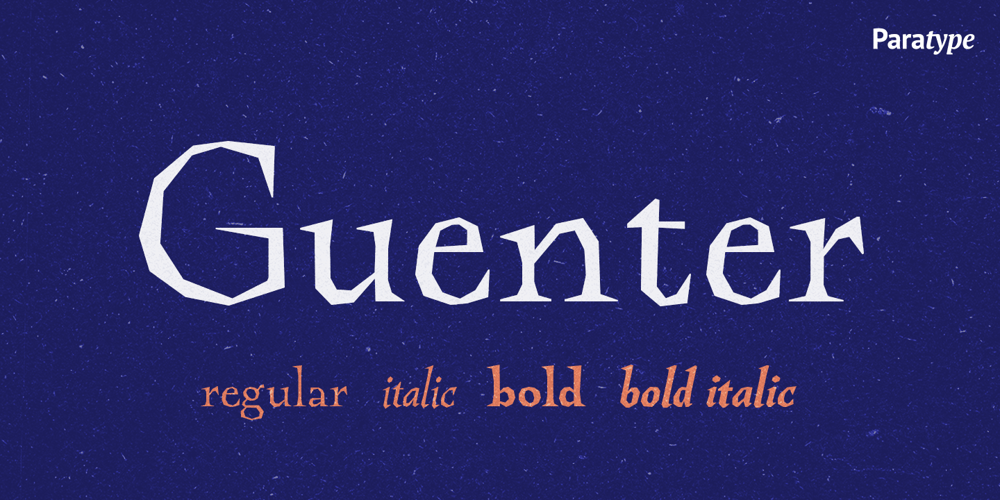
Guenter Font Family was designed by Zakhar Yaschin and published by ParaType. Guenter contains 4 styles and family package options. Guenter type got its name after Guenter Gnauck — the calligrapher from Eastern Germany whose works brought an inspiration and initial incitement for the design. But in contradiction to the calligraphic nature of the inspiration source Guenter has a specific construction that is built solely with straight stems. Like KvadratZ family Guenter belongs to so called ‘in-one-touch’ series. The first version in one basic style was developed by Zakhar Yaschin in 2001. In 2009 the font was redesigned with addition of 3 new styles and released by ParaType as a family.